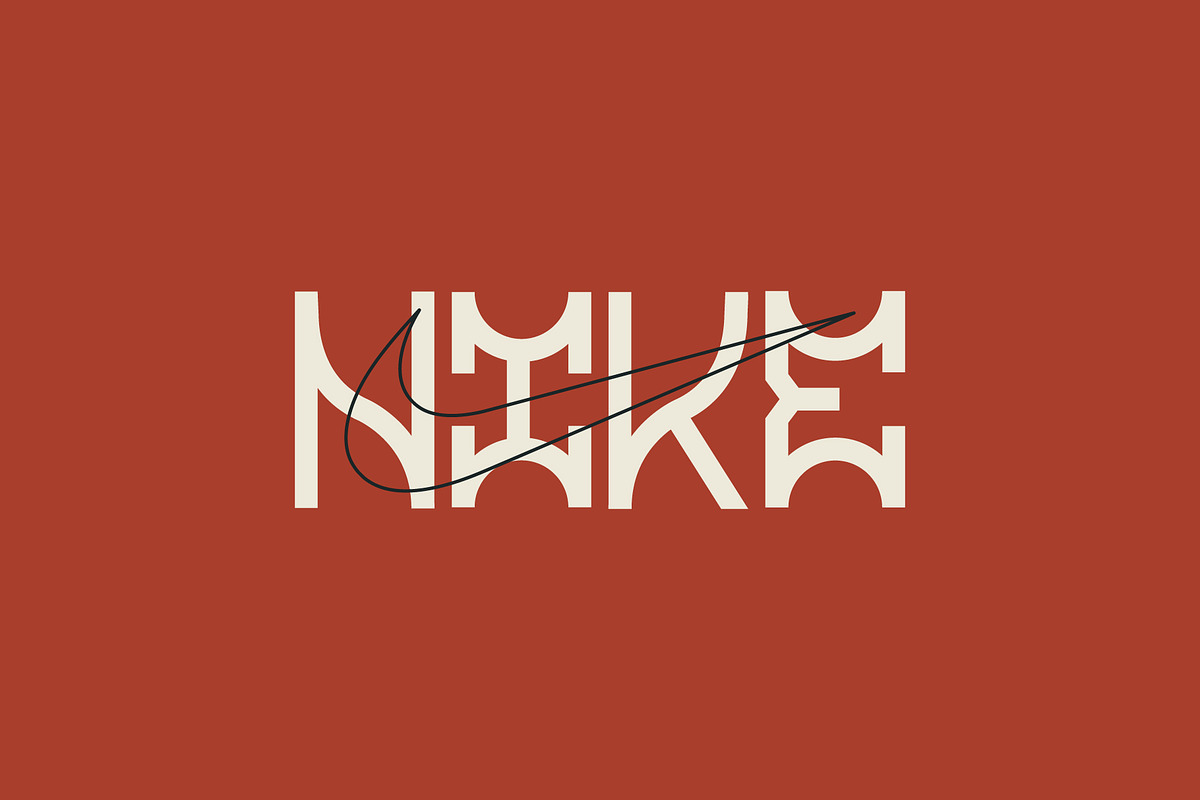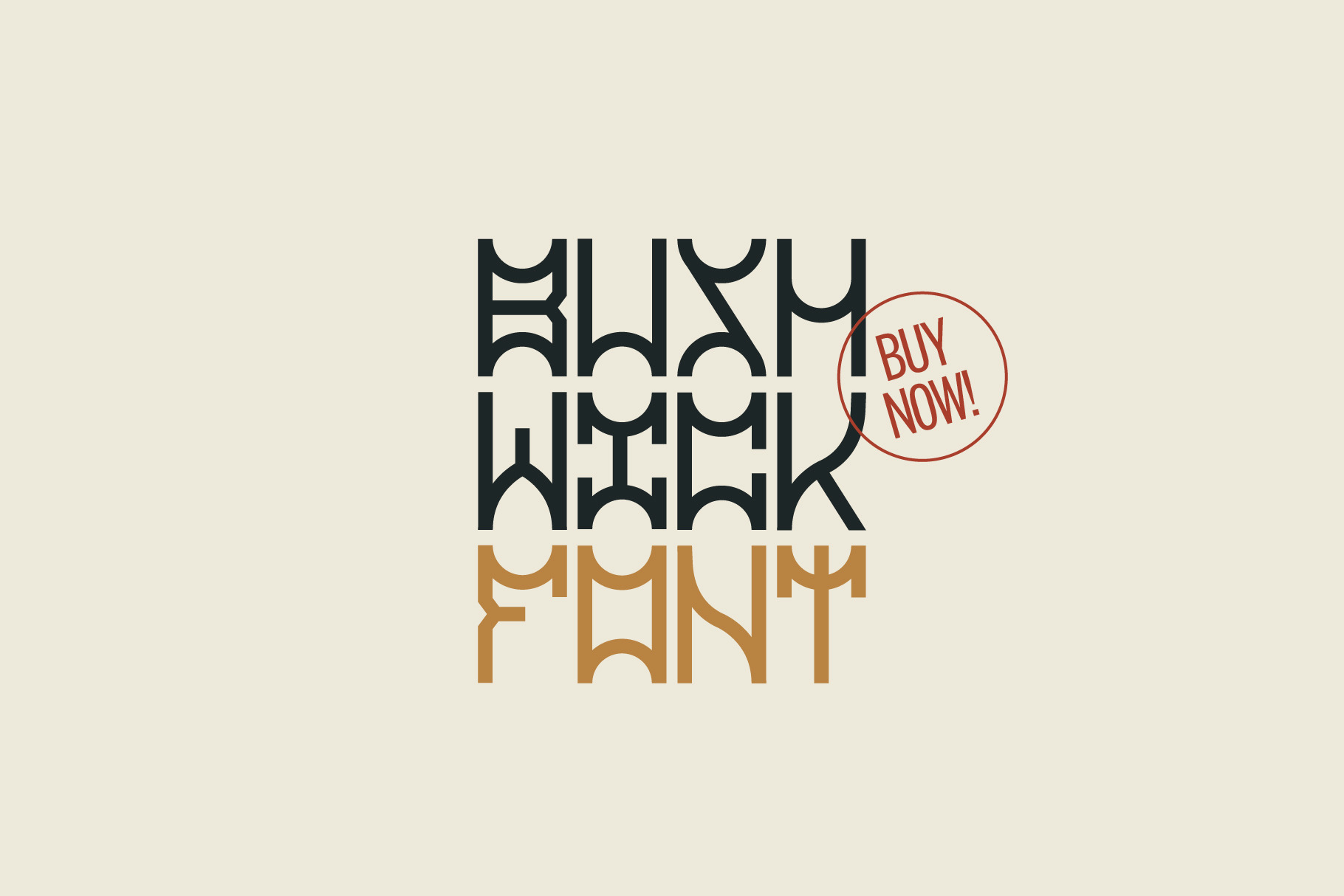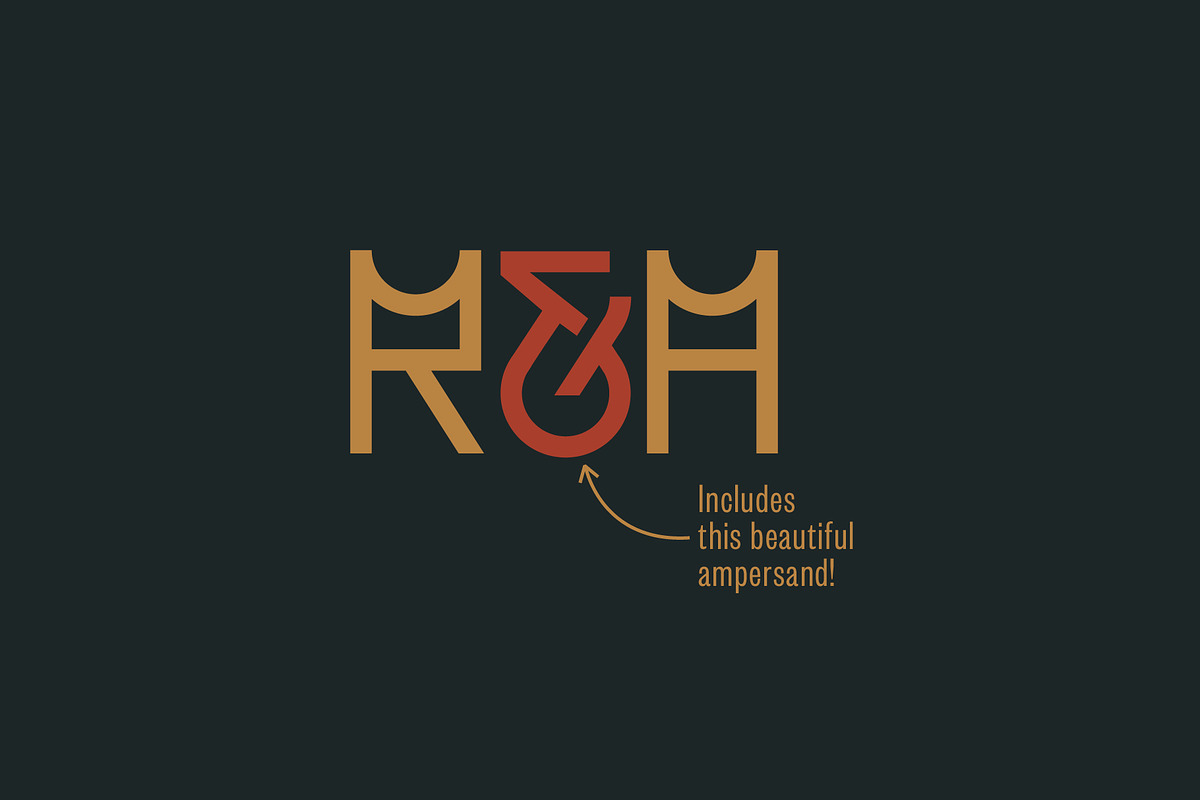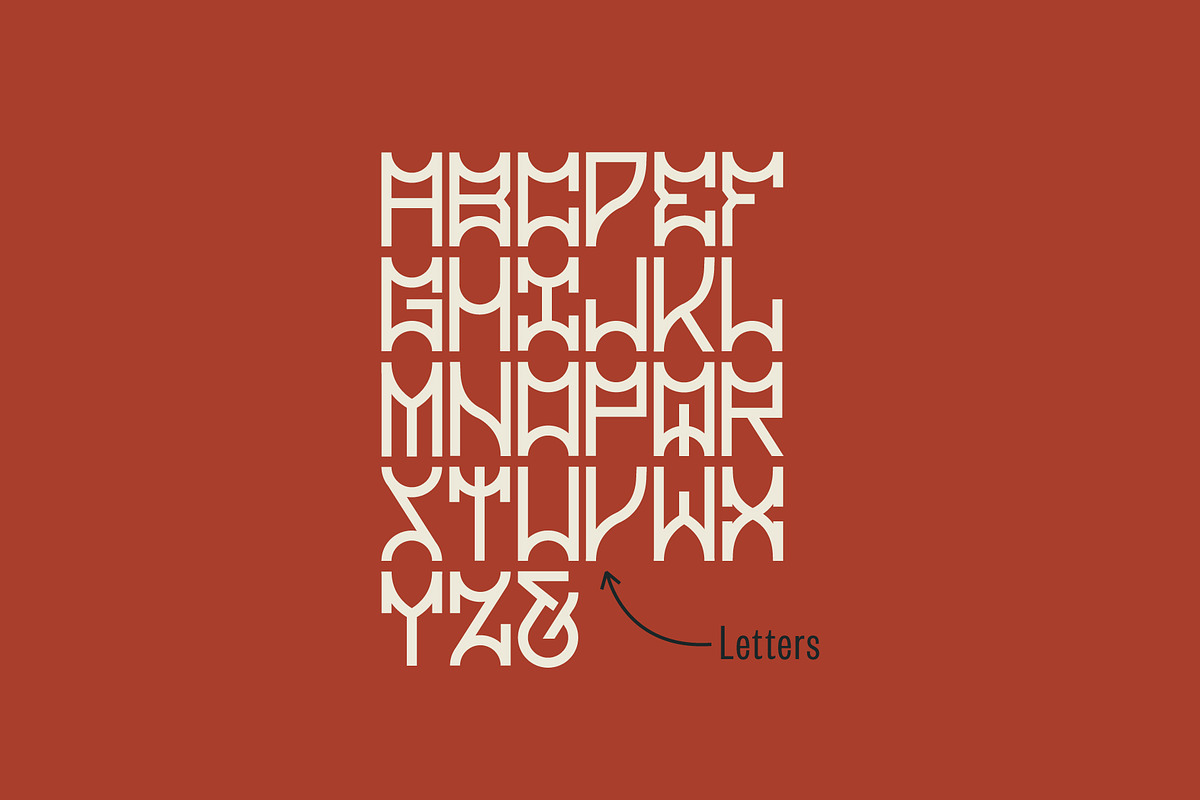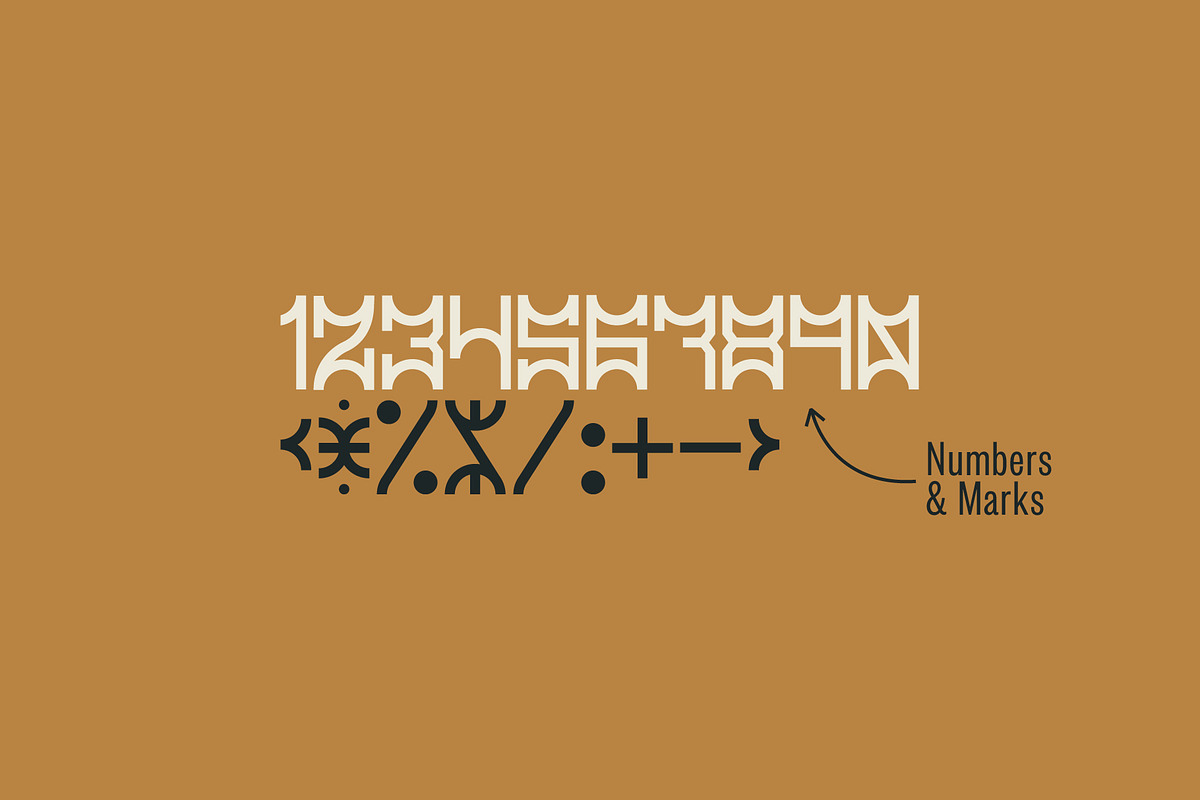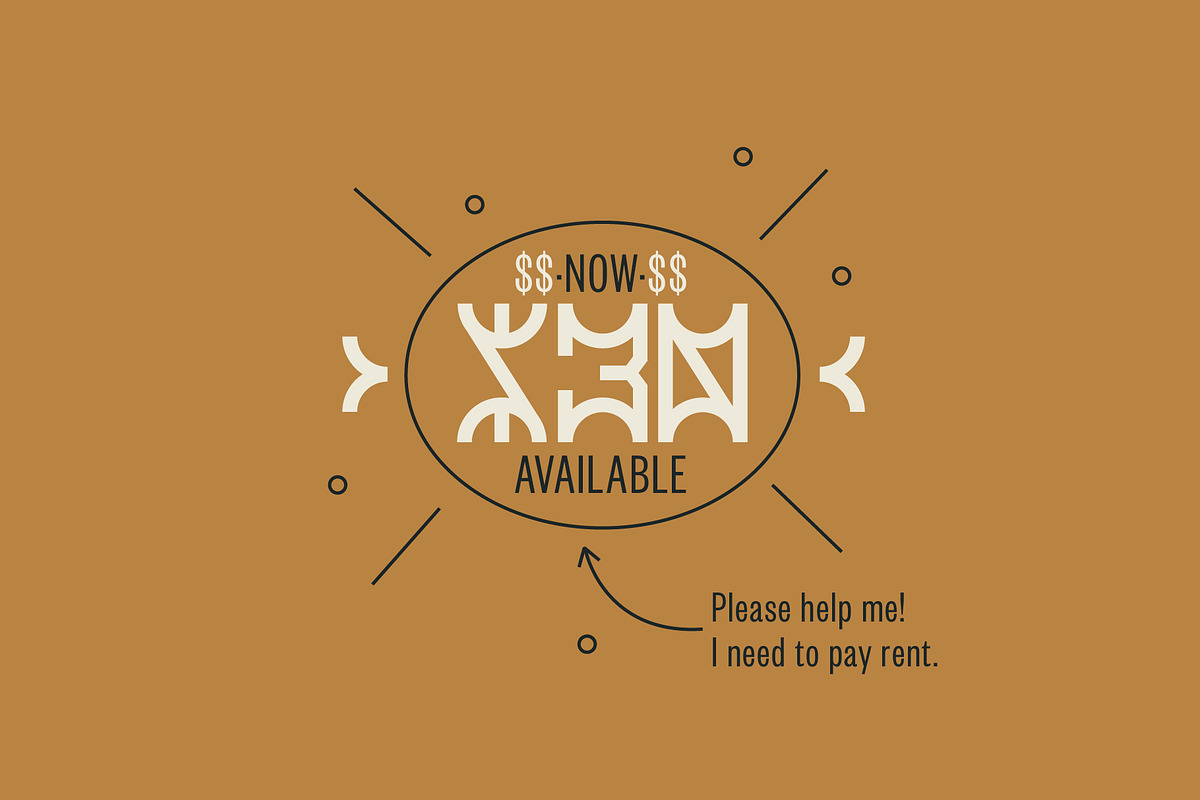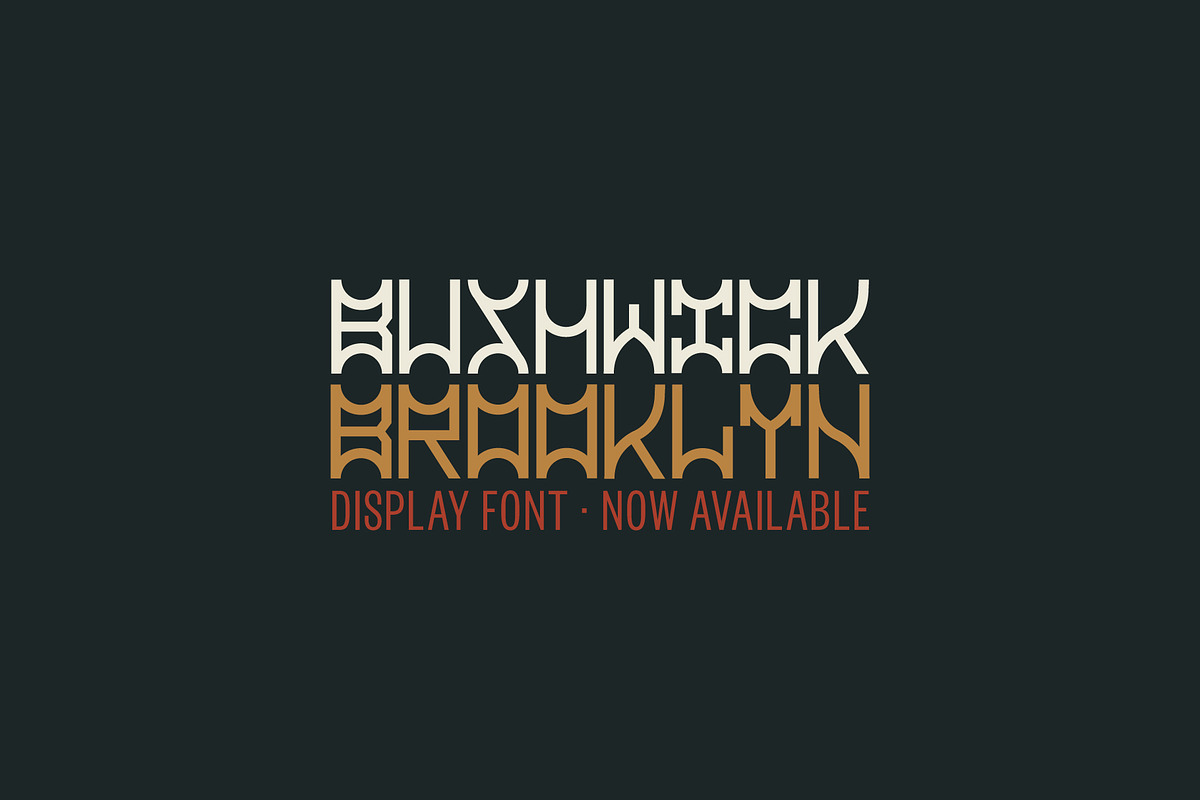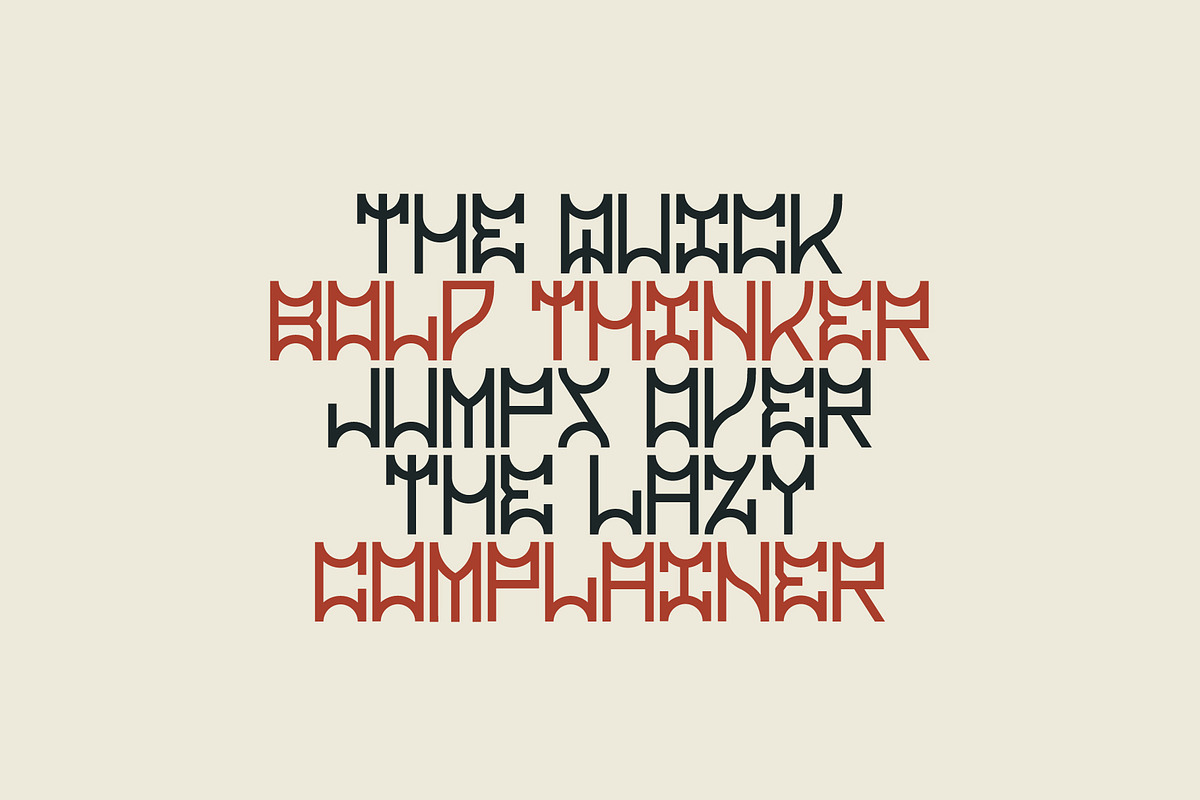
Bushwick Display Font
Bushwick is a display font inspired by the graffiti culture & Brooklyn vibes. Includes all letters, ampersand, numbers, and some punctuation marks. Bushwick is an all caps font with a blocky style, special for big headlines, and recommended for editorial projects, blogs, clothing, flyers/posters, and social media content.